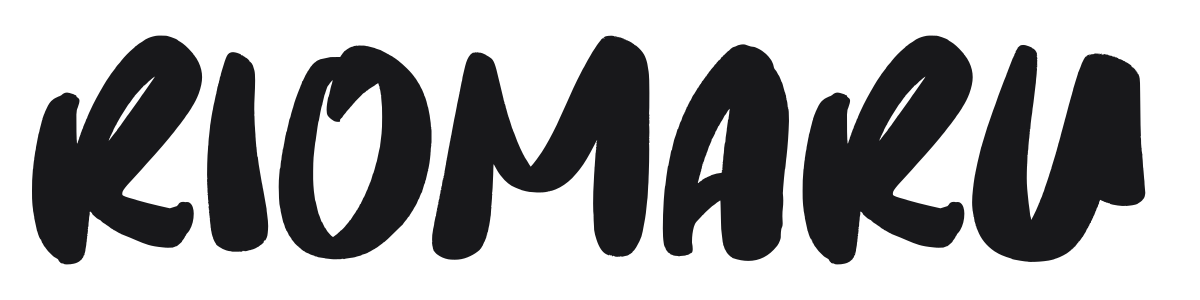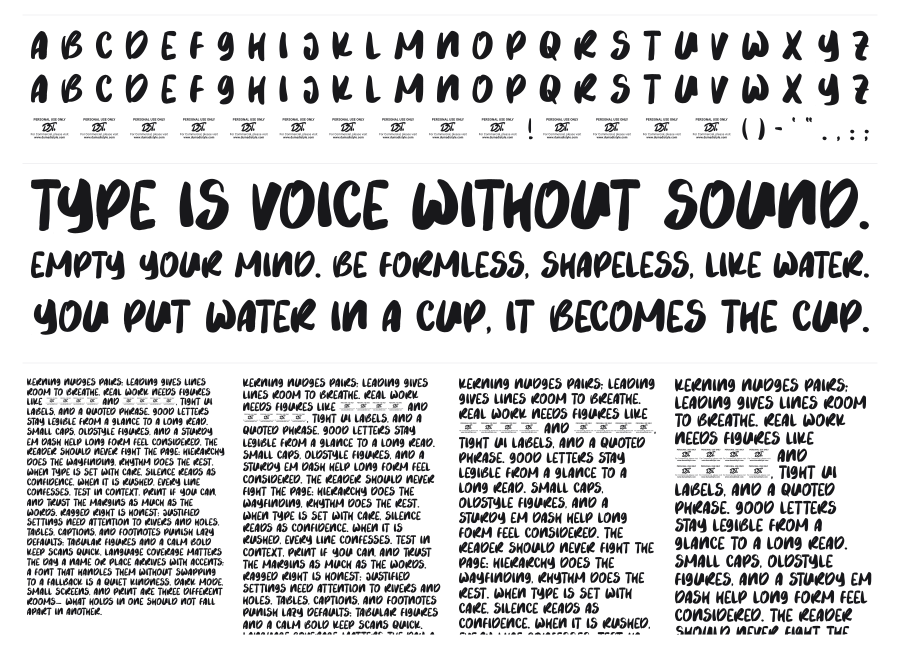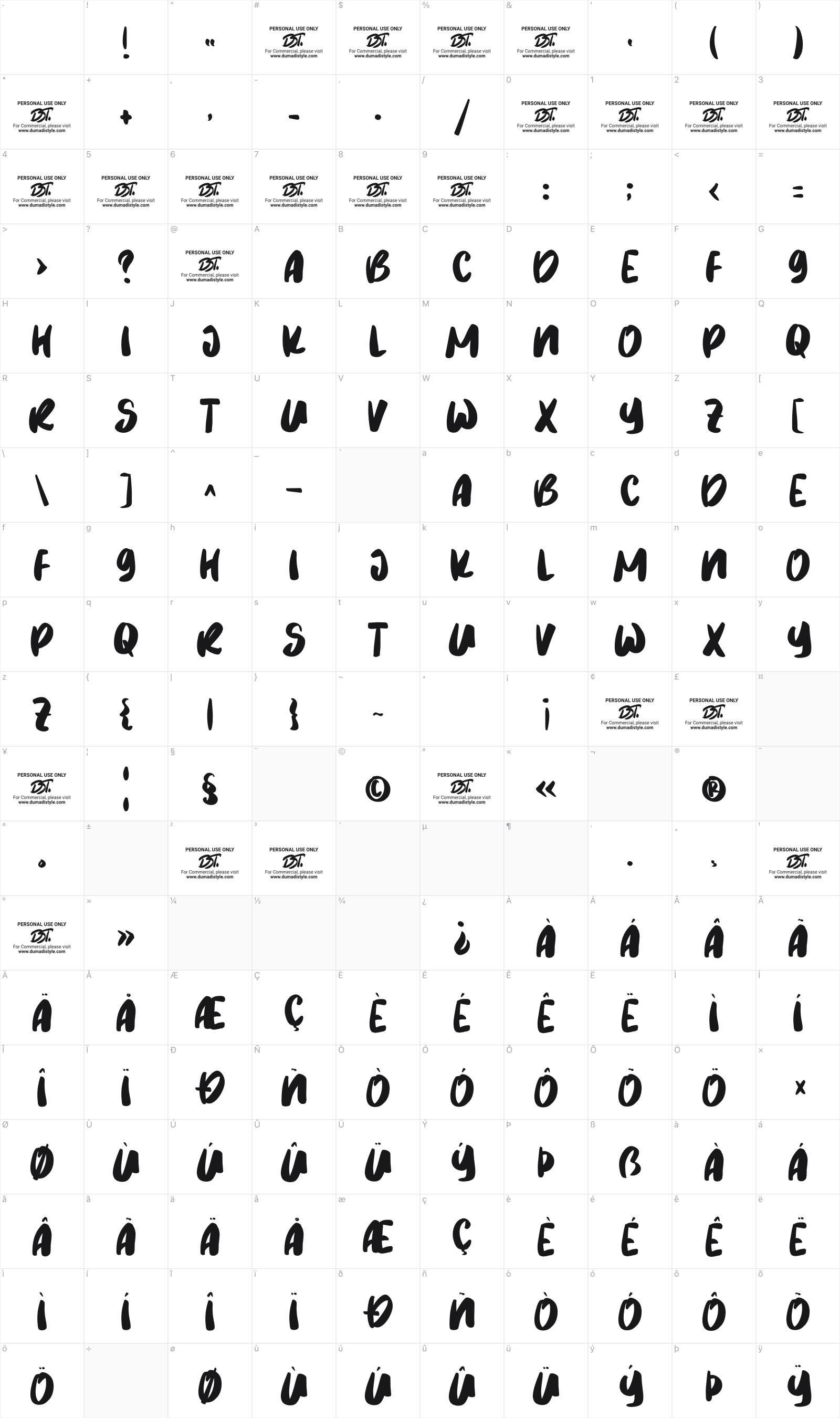
Riomaru
Riomaru is a bold brush script with chunky, hand-painted strokes and a casual street-art energy. The thick, rounded characters carry just enough ink texture to feel authentically hand-lettered without sacrificing legibility at large sizes. It works well for titles, packaging, and any project that needs a confident, youthful handmade feel.